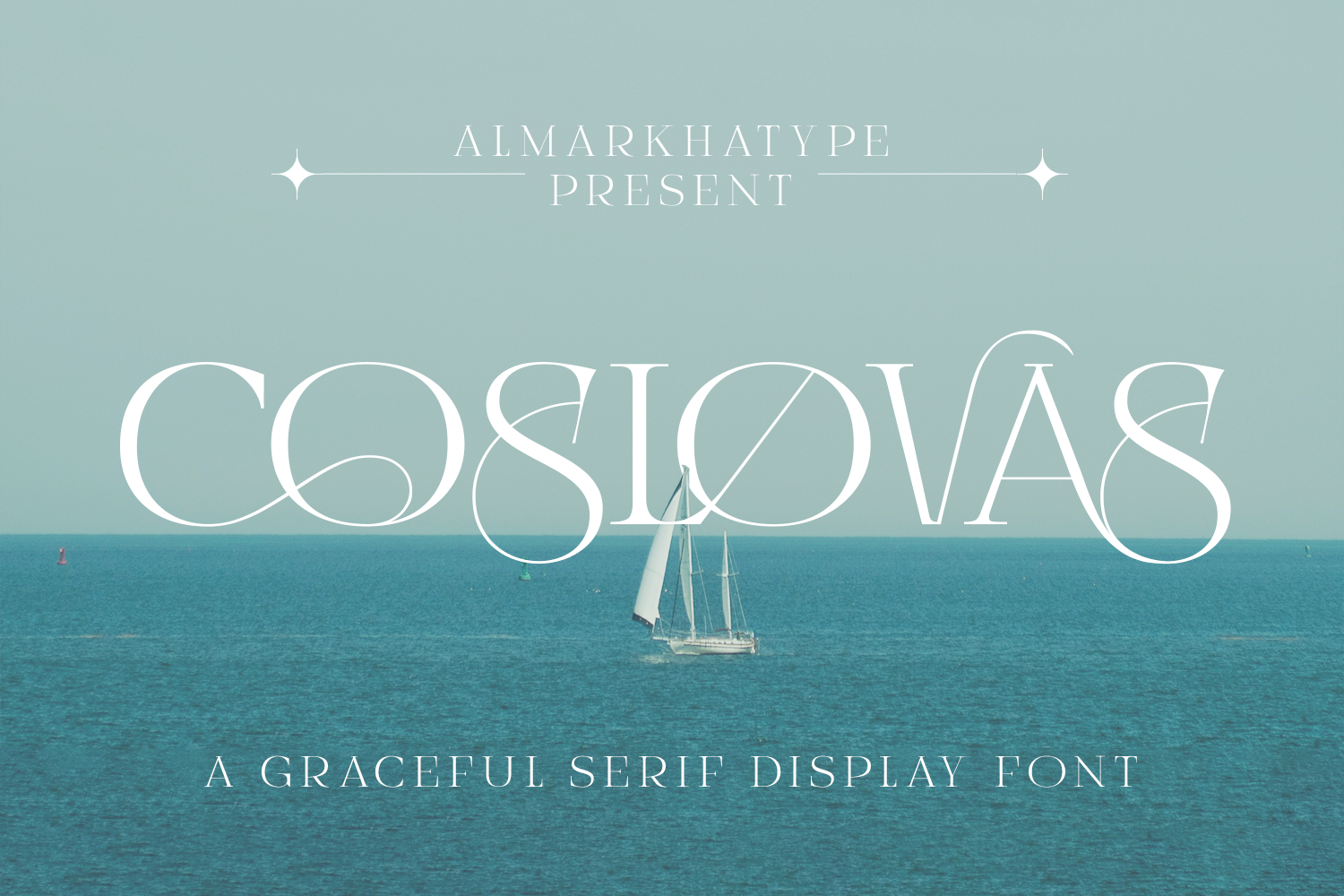
Coslovas - Graceful Serif Display Font
Coslovas is a graceful serif display font designed to bring refined elegance, artistic sophistication, and timeless beauty into your typography. Featuring luxurious curves, high-contrast strokes, and delicately crafted letterforms, Coslovas delivers a polished, stylish, and visually enchanting presence—perfect for designs that aim for both modern finesse and classic charm. Carefully shaped with attention to ornamental balance, this typeface blends smooth serifs with expressive, decorative nuances, making it exceptionally suited for high-end compositions that require a harmony of sophistication and visual flair. Coslovas also includes beautifully stylized alternates and ligatures, offering designers expanded creative freedom to elevate their layouts with graceful details and distinctive typographic personality.